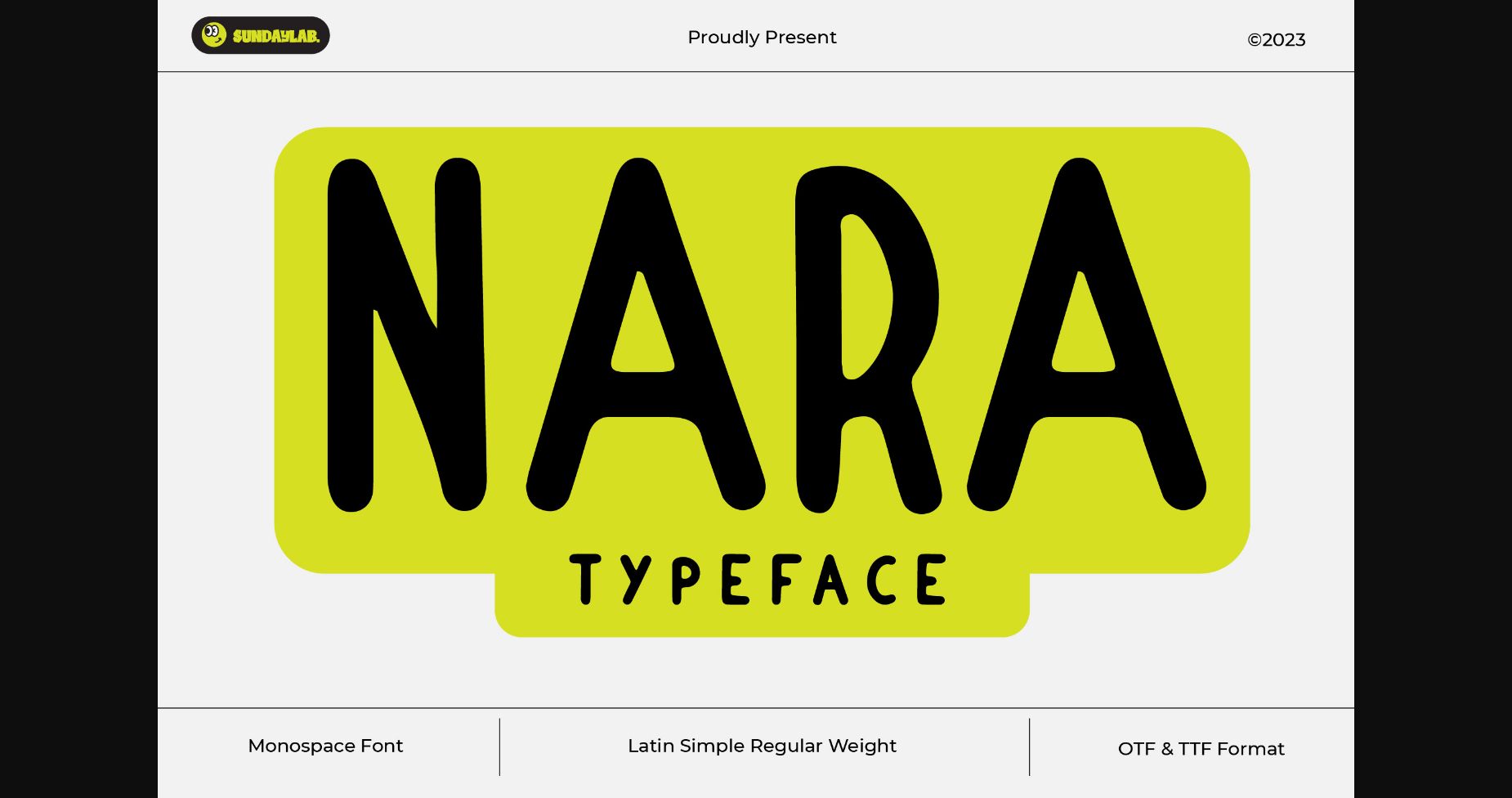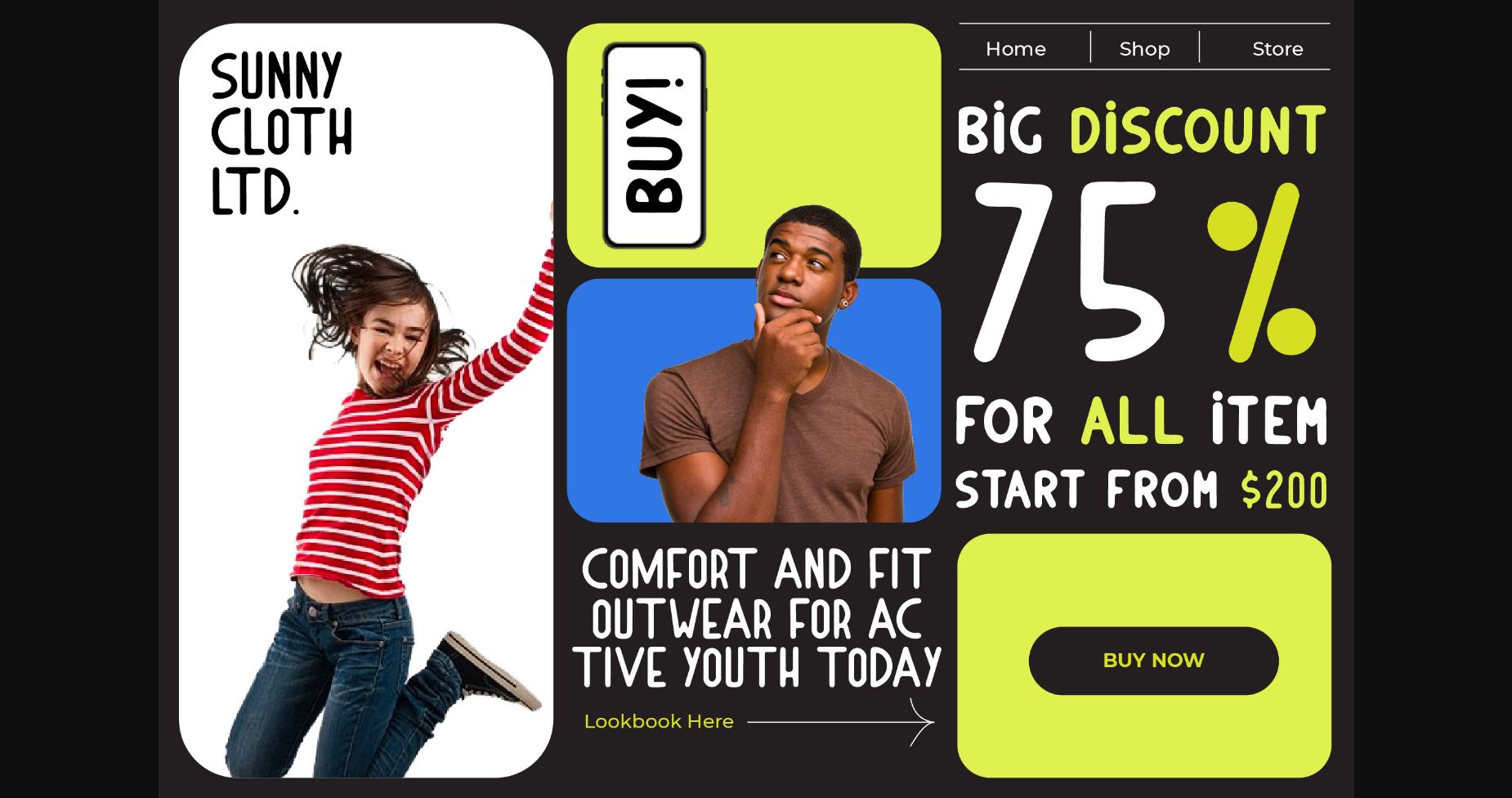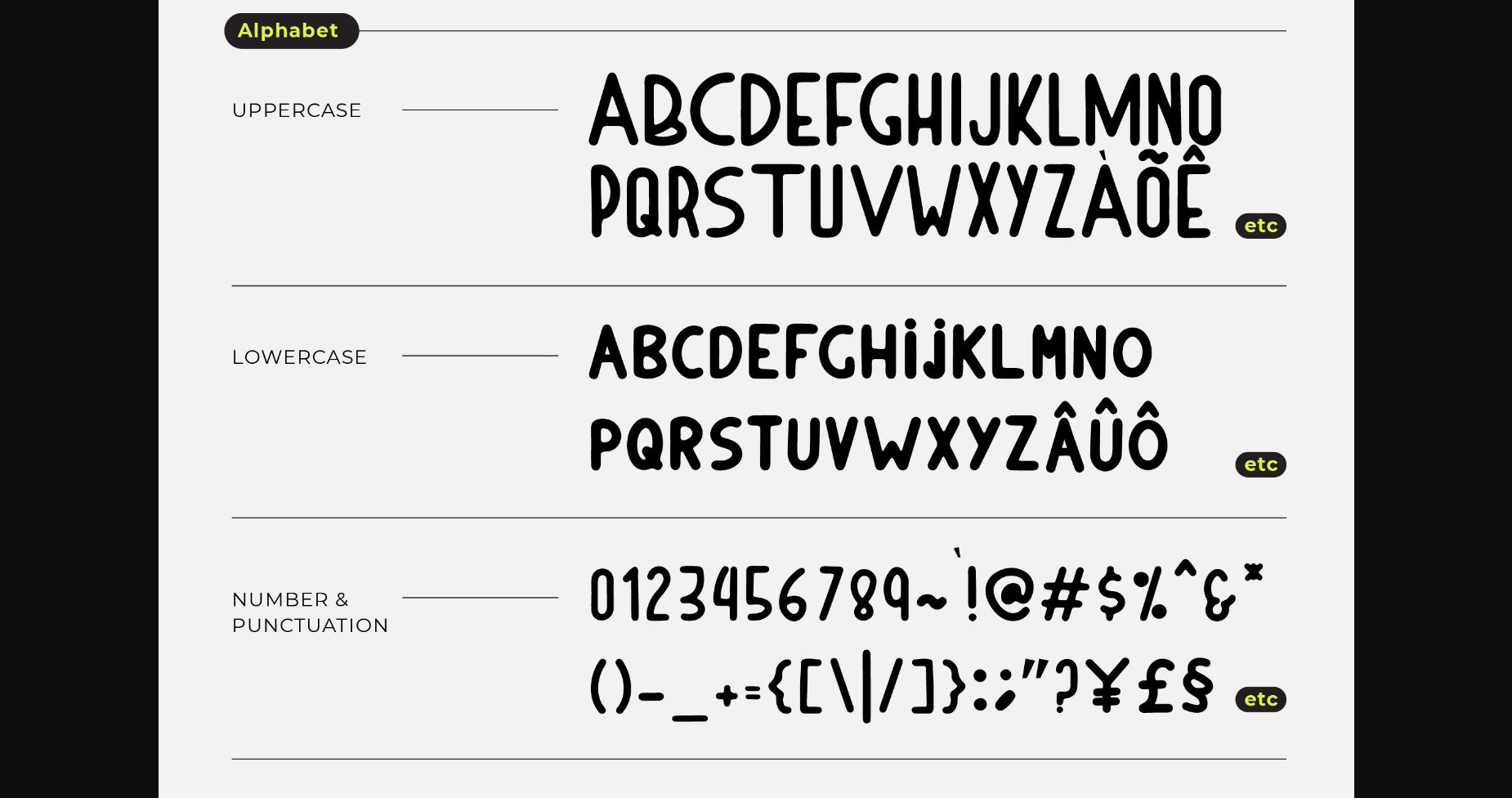
About Nara Font
Introducing a simple and modern sans serif font that’s perfect for any design project. With clean lines and a sleek, minimalist style, this font is easy to read and looks great on screens or in print. Its timeless simplicity makes it a versatile choice for any application. This font is PUA encoded which means you can access all glyphs and swashes effortlessly!